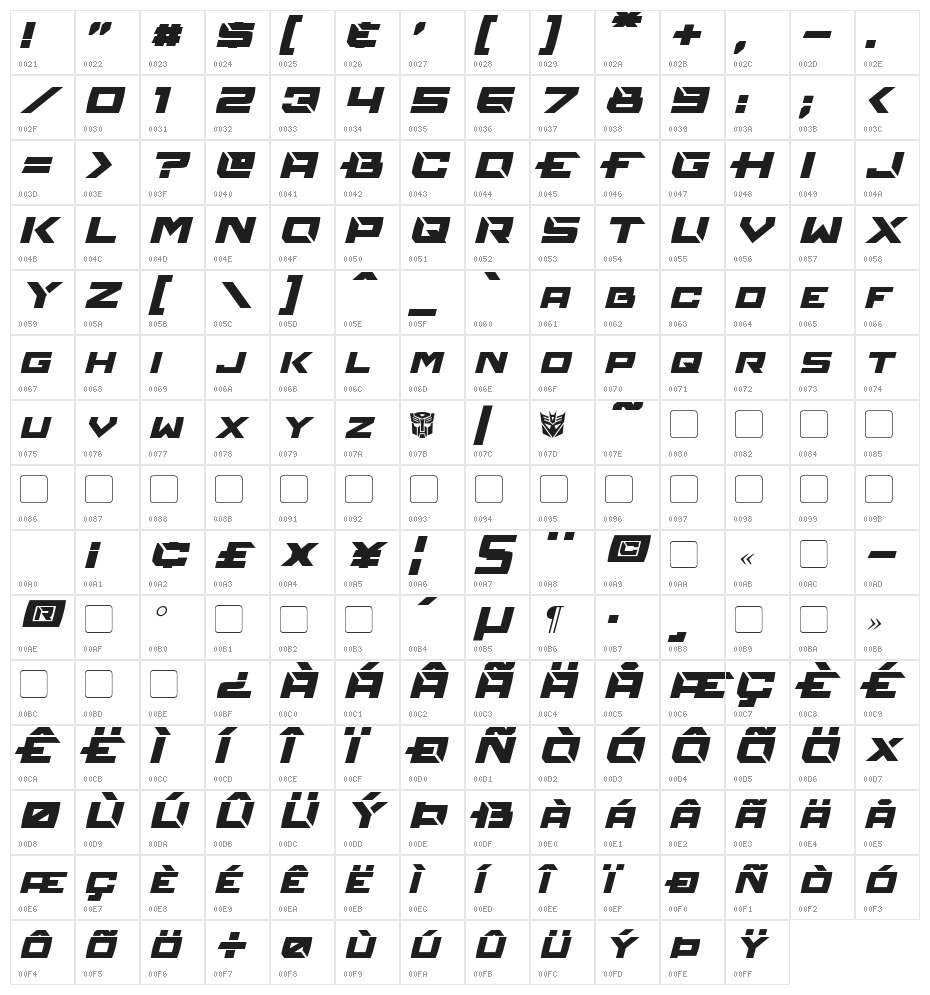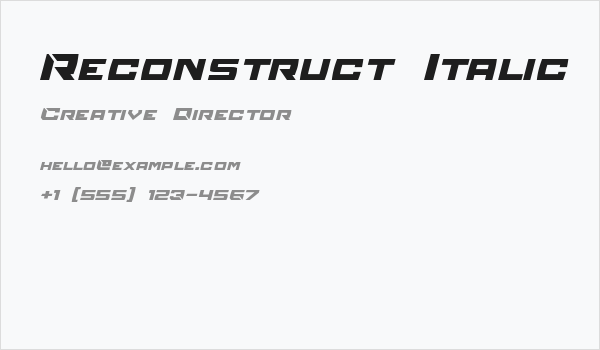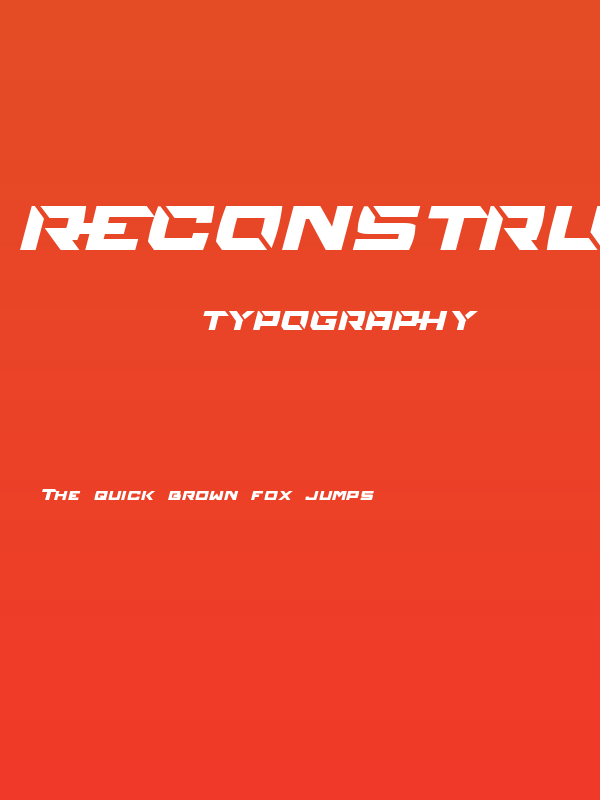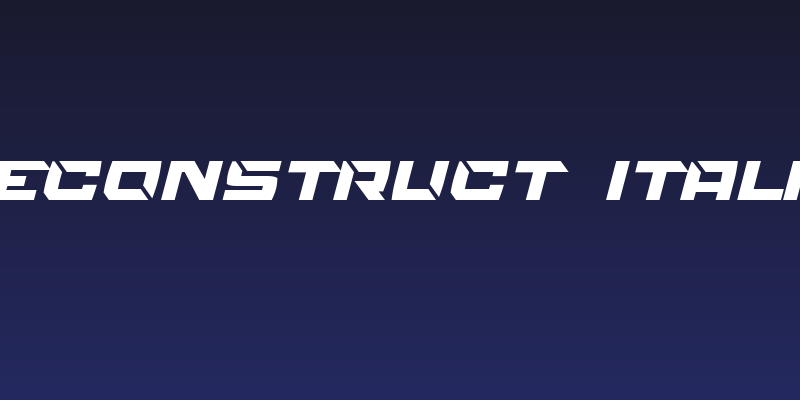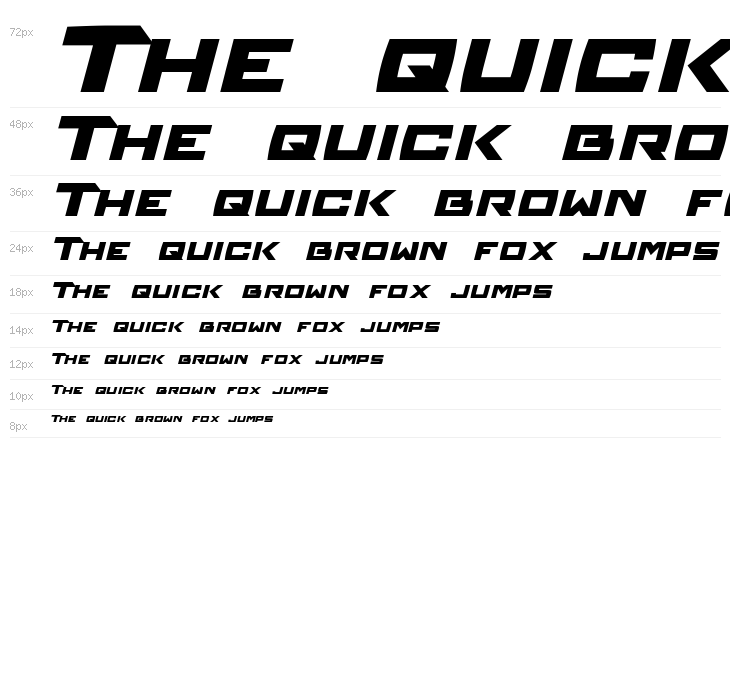
Reconstruct Italic Font
| Nome | Reconstruct Italic |
| Peso | Italic |
| Stile generale | Futuristic |
| Progetti proposti | Ideal for sci-fi themed projects, video game titles, sports branding, and dynamic posters. |